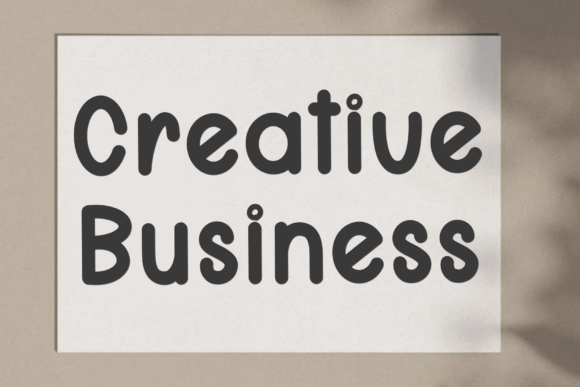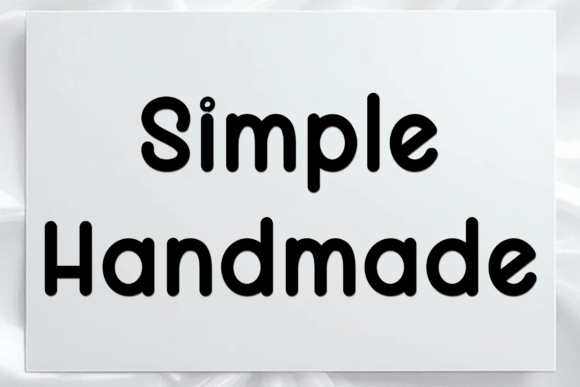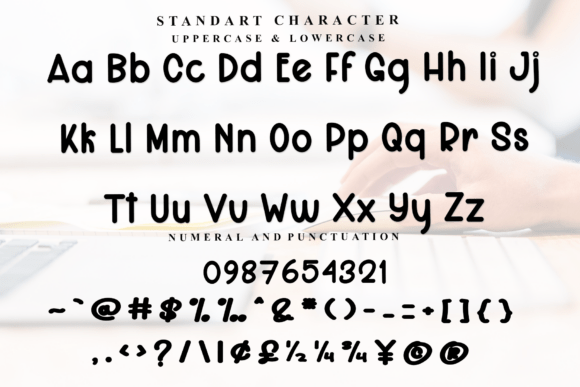
Introduction to Nothing Writing Font
Have you ever found yourself stuck in front of a blank page, struggling to bring your creative vision to life? It’s a familiar feeling for many designers, but what if you had the perfect tool to help you break through the barrier and unleash your imagination? Enter the Nothing Writing Font, a charming and versatile handwritten font that’s about to become your new best friend.
With its natural, high-quality aesthetic and transparent background, the Nothing Writing Font is the perfect design resource for any creative project. Whether you’re working on a free download, a social media campaign, or a full-fledged branding strategy, this font is sure to elevate your design and help you stand out from the crowd.
What sets the Nothing Writing Font apart is its unique style, which is both friendly and sophisticated. It’s the perfect fit for a wide range of designs, from elegant invitations to playful social media graphics. And the best part? With the Nothing Writing Font, the only limit is your imagination – so get creative and see what amazing things you can come up with!
Key Features of Nothing Writing Font
- High-quality design suitable for creative projects, including digital art, graphics, and web design.
- Comes in a transparent background, allowing for easy customization and integration with various backgrounds.
- Unique characteristics include a modern and minimalist aesthetic, perfect for creating visually appealing content.
- Size: Multi-language support, including Latin, Cyrillic, and Greek alphabets, making it a versatile font for global projects.
Honest Review: Nothing Writing Font
I recently stumbled upon the Nothing Writing Font, and I’m excited to share my thoughts on this design resource. As a designer, I’m always on the lookout for high-quality fonts that can elevate my creative projects. This font didn’t disappoint.
What works well: ✨ The Nothing Writing Font has a beautiful, elegant aesthetic that’s perfect for projects where you want to convey a sense of sophistication and refinement. The font is available for free download, making it an excellent addition to any designer’s toolkit. I also appreciate the transparent background, which makes it easy to customize and integrate into any design.
What doesn’t work well: ⚠️ While the Nothing Writing Font is a great addition to any design library, I did find that it’s not suitable for projects that require bold, attention-grabbing typography. The font is more suited for subtle, understated designs.
Overall, I’m impressed with the Nothing Writing Font. It’s a solid addition to any designer’s toolkit, and I’m happy to have it in my library. If you’re looking for a high-quality font for your creative projects, I’d definitely recommend giving it a try.
Tips for Getting the Most Out of Nothing Writing Font
Experiment with different font sizes and colors to create a unique look. Combine the font with other design elements, such as images and graphics, to create a visually appealing design. Use the font’s transparent background to layer it over other design elements for a creative effect.
Common Use Cases for Nothing Writing Font
The Nothing Writing Font is perfect for creating eye-catching headings, titles, and quotes for your designs. It’s also great for adding a creative touch to your social media graphics, flyers, and brochures. With its high quality design and transparent background, the Nothing Writing Font is a versatile design resource that can be used in a variety of creative projects.
Is the Nothing Writing Font suitable for use on a transparent background?
Yes, the Nothing Writing Font has a transparent background, making it perfect for use on a transparent or semi-transparent background in your design projects. The font’s transparent background also allows for easy layering and composition in your creative projects.